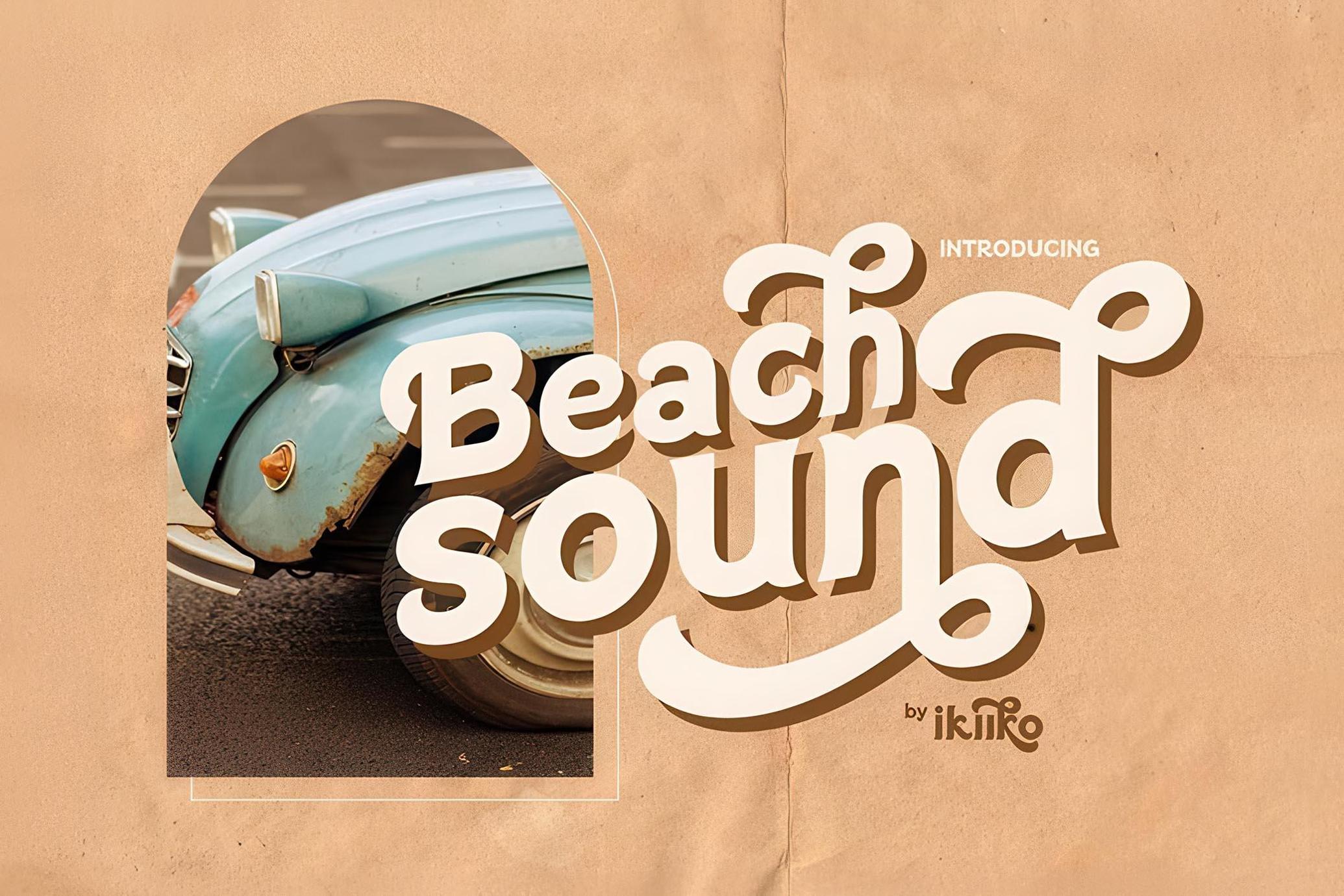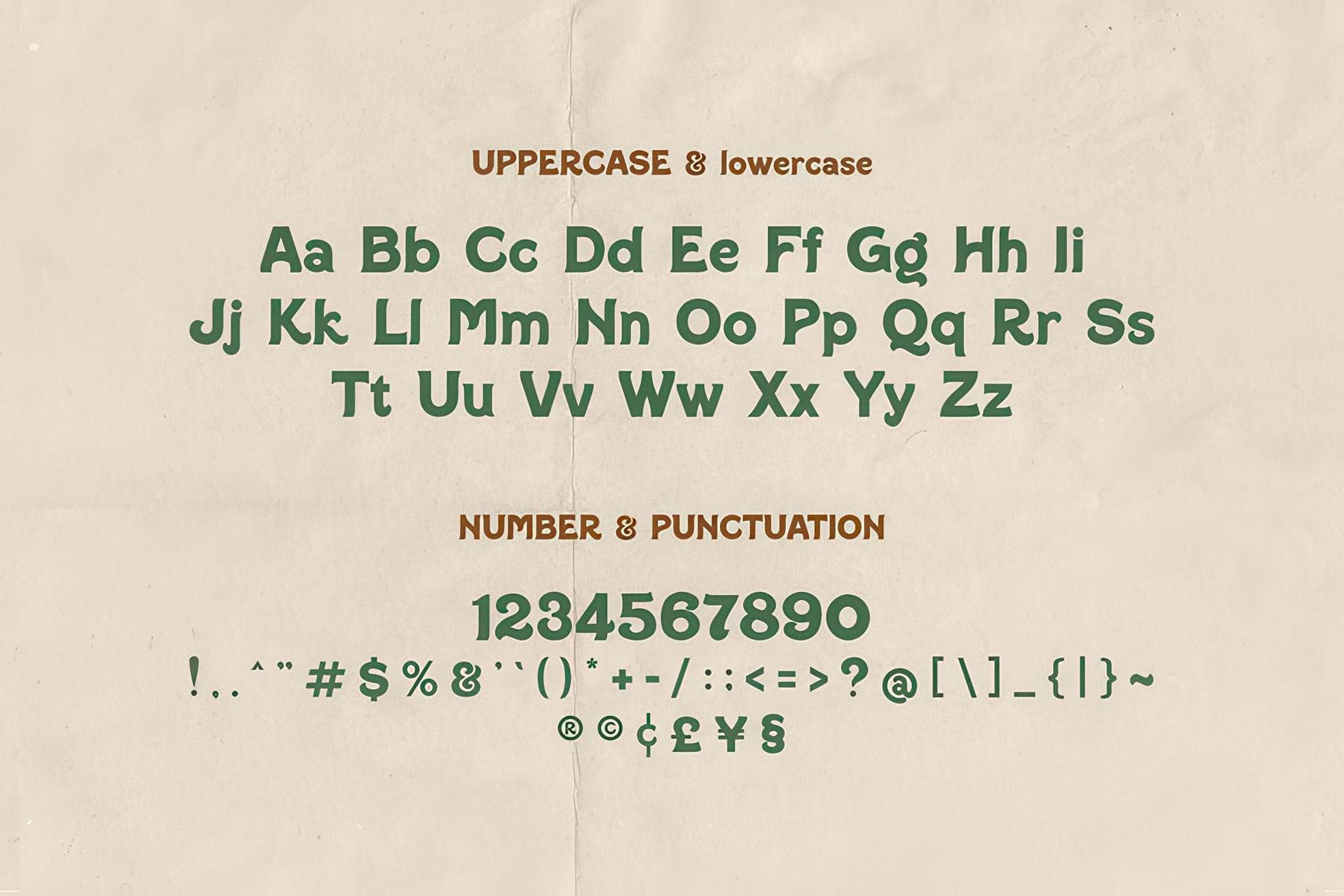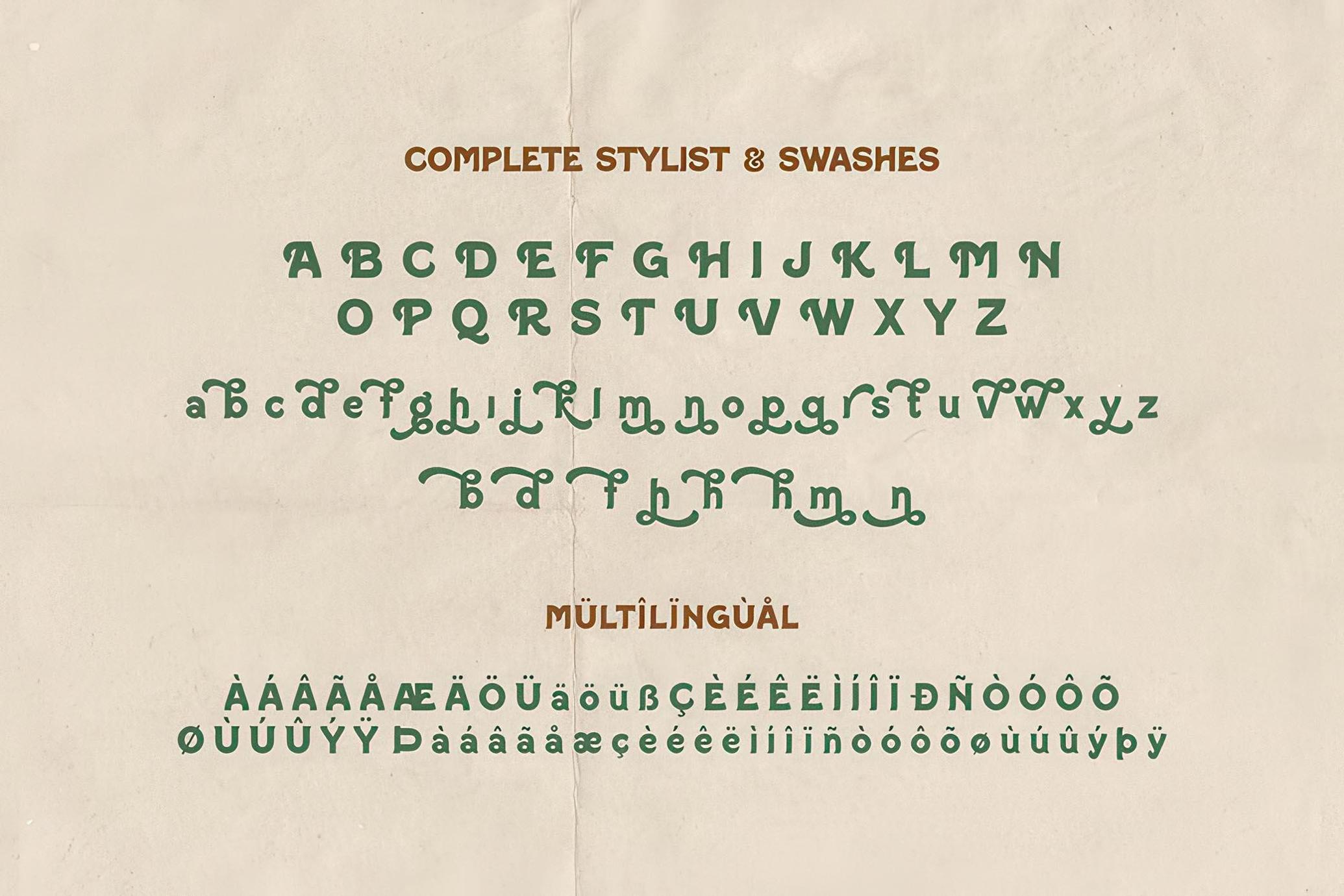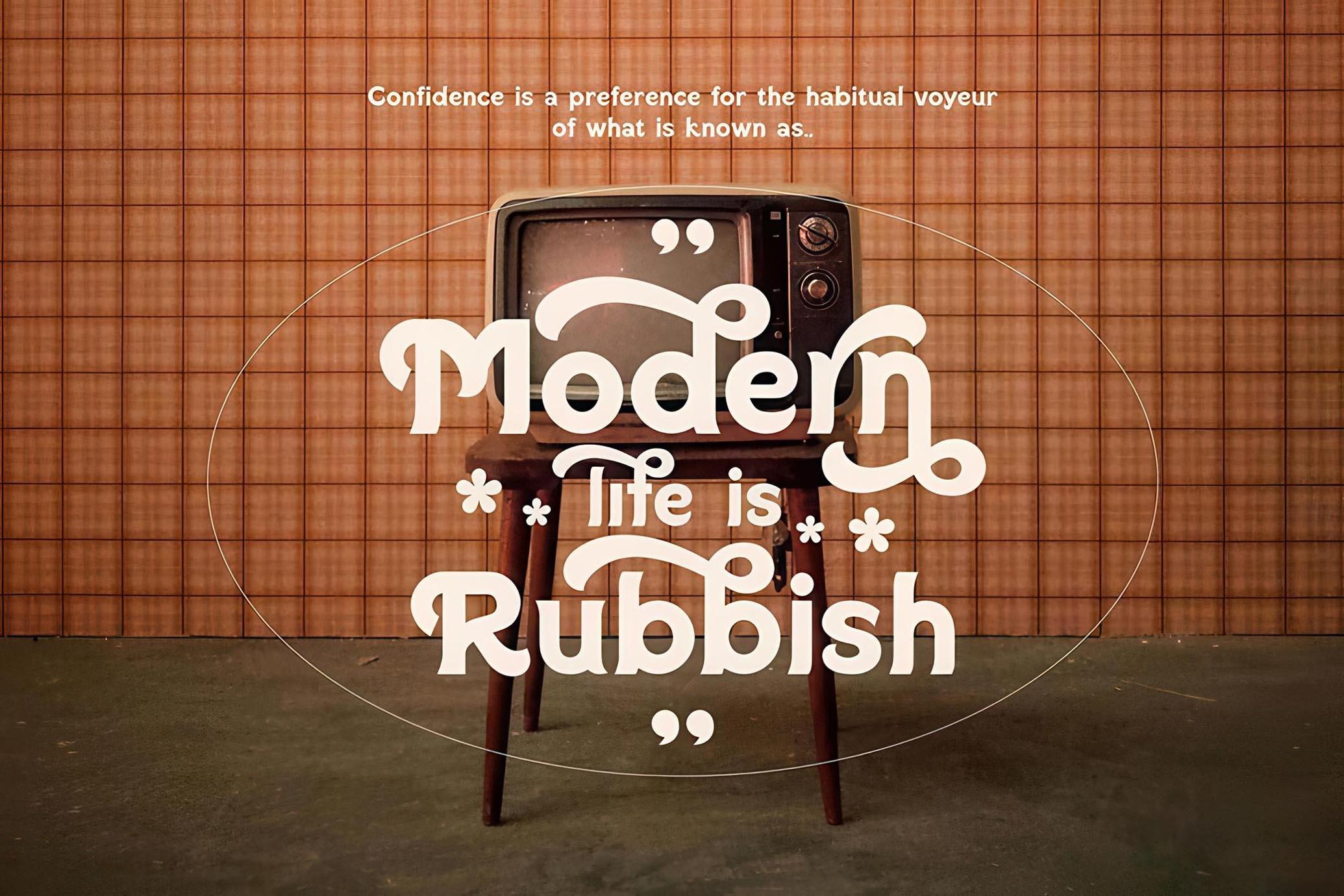
Beach Sound - 60s Vintage Font
Beach Sound
A vintage stylish font It has both modern and retro look. The perfect one to create layout design in 60s or 70s design projects. This font have unique stylist and swashes that to give to your brand logo, poster food & beverages brand, cookies and another project to a have unique or vintage look.
- Number & Punctuation
- Complete Stylist & Swashes